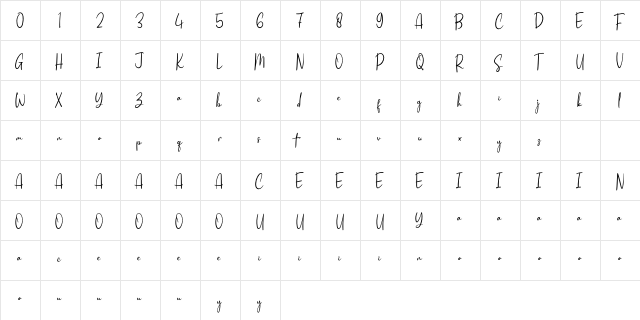
Ruth Signature Personal Use
Design Context for Ruth Signature Typeface
Ruth Signature takes a measured approach to typography — its balanced proportions and neutral character make it a reliable workhorse for both digital and print work.